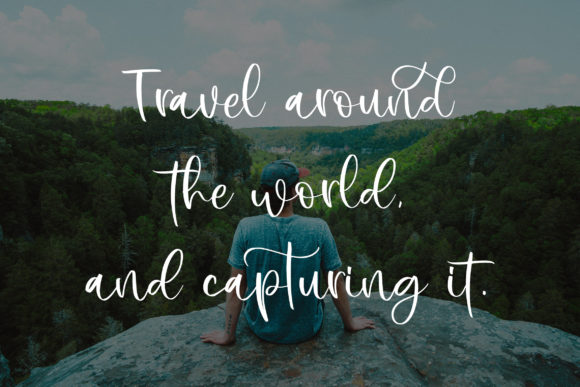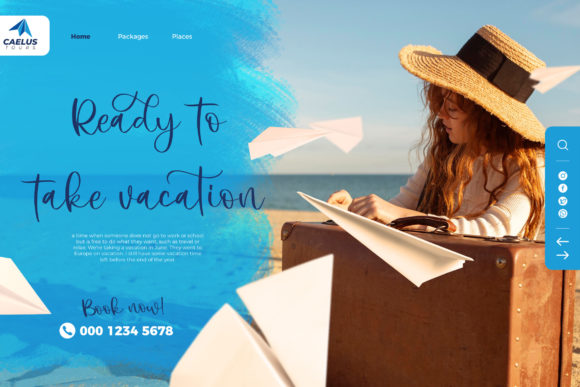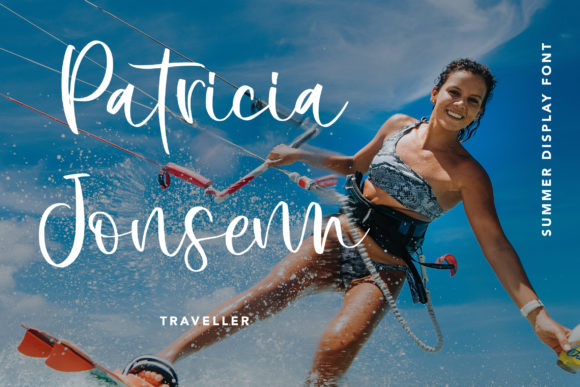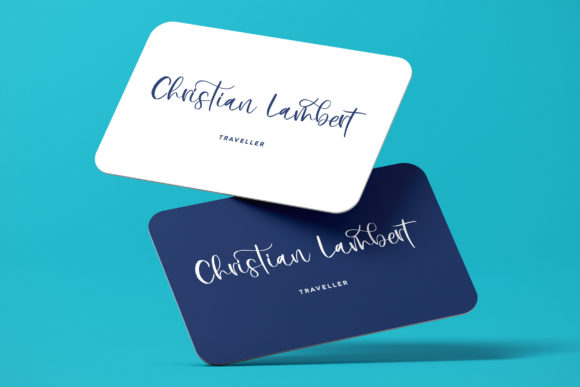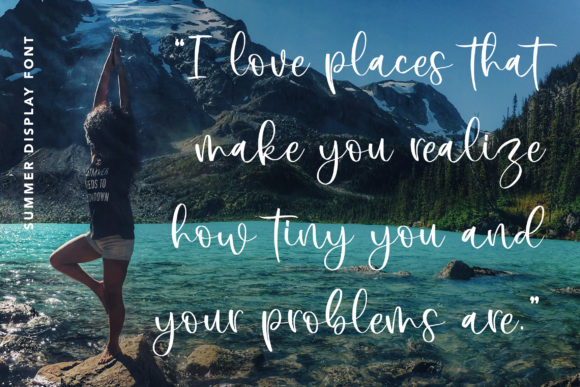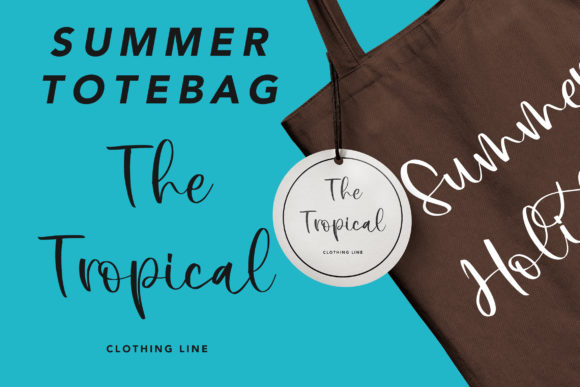
The Magic of Everytime Font: Elevate Your Designs with Charming Script
I’ll never forget the time I was working on a wedding invitation project, and my client asked for a font that would make their special day feel “whimsical” and “romantic.” I scoured the internet, trying out font after font, but nothing seemed quite right. That was until I stumbled upon Everytime Font. Its charming, playful characters seemed to dance along the baseline, and I knew I had found the perfect fit. In this article, I’ll share my love for Everytime Font, its features, and how to make the most of it in your designs.
An Honest Review of Everytime Font
- ✨ Charming, playful characters that add a touch of whimsy to any design
- 💃 Beautifully crafted to evoke a sense of romance and elegance
- 🎉 Extensive OpenType features, including glyphs and stylistic alternates
While Everytime Font is an excellent choice for many projects, there are a few things to keep in mind:
- 🤔 Some characters may not work well in all contexts, such as headings or titles with complex layouts
- ⚠️ Limited support for non-English languages, so double-check compatibility before use
The Story Behind Everytime Font
Everytime Font was designed with the intention of creating a beautiful, elegant script font that would evoke feelings of romance and whimsy. The designer aimed to craft a font that would be both highly legible and visually appealing, making it perfect for a wide range of creative projects.
| Font Name | Everytime Font |
| Author | Arendxstudio |
Q: Is Everytime Font suitable for body text?
A: While Everytime Font is highly legible, it’s best suited for shorter blocks of text, such as headings, titles, or captions. For longer body text, consider pairing it with a complementary font.
Q: Is Everytime Font available in multiple languages?
A: Everytime Font has limited support for non-English languages. If you need to use it for a multilingual project, double-check compatibility before use.